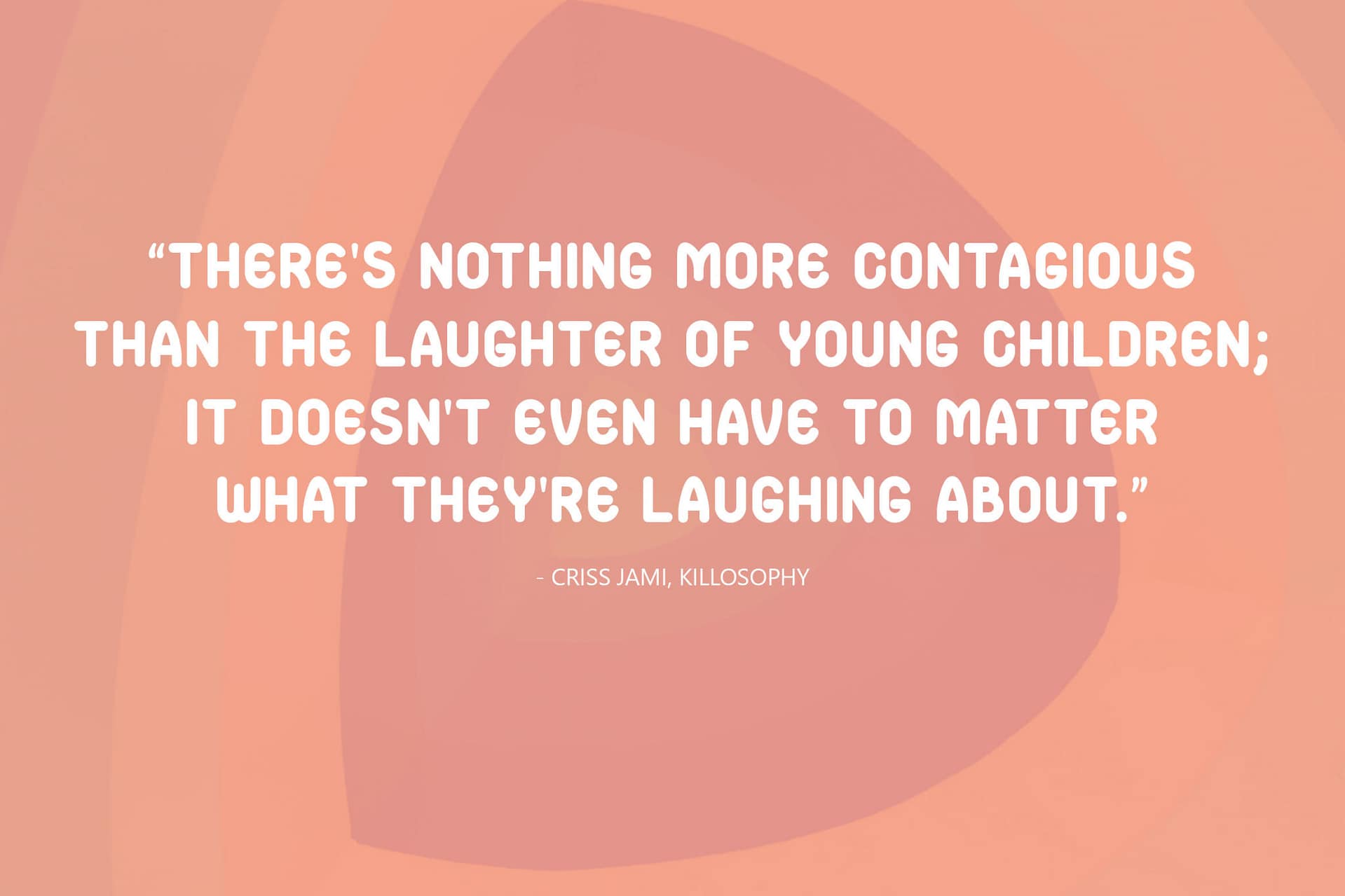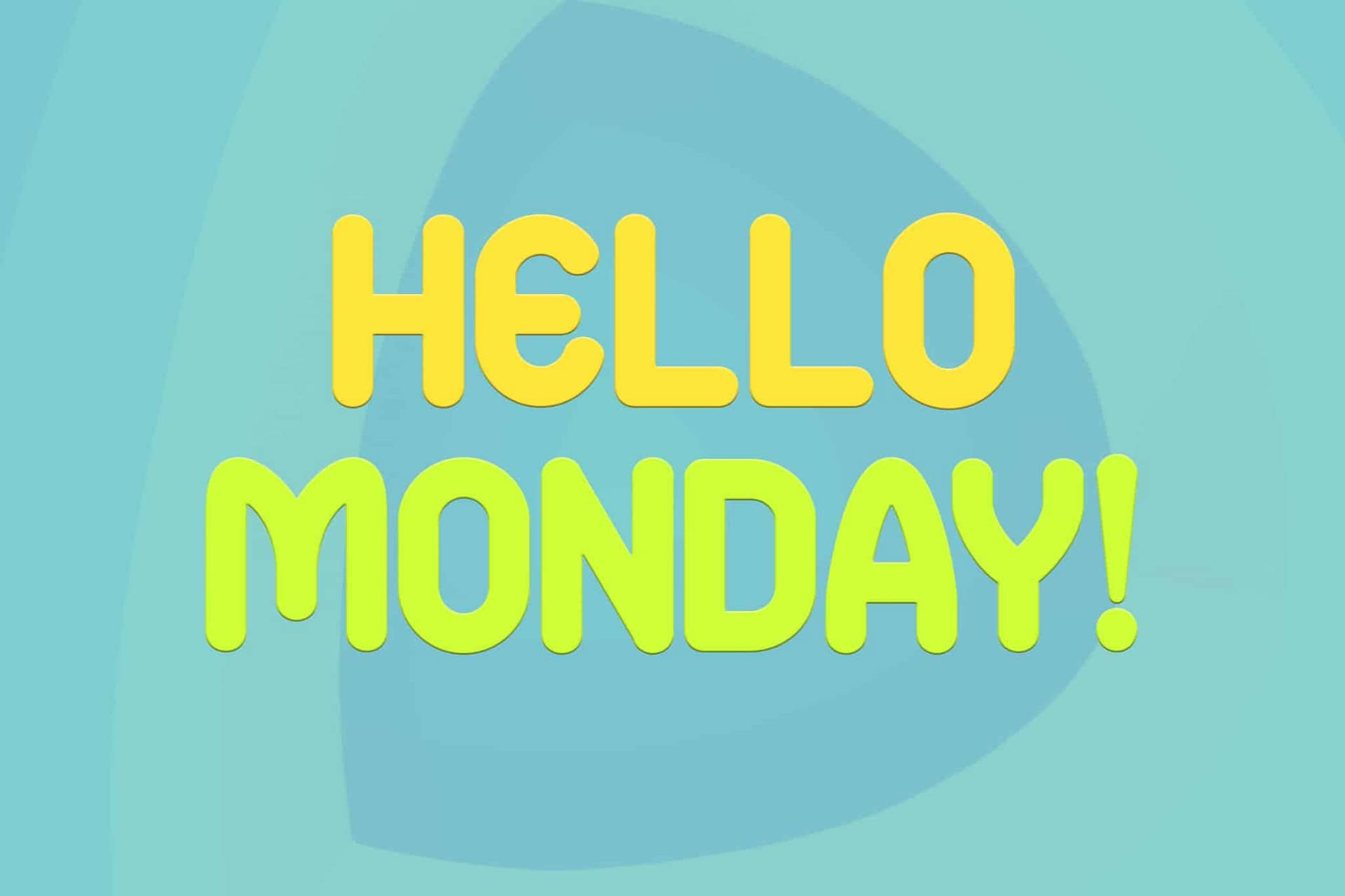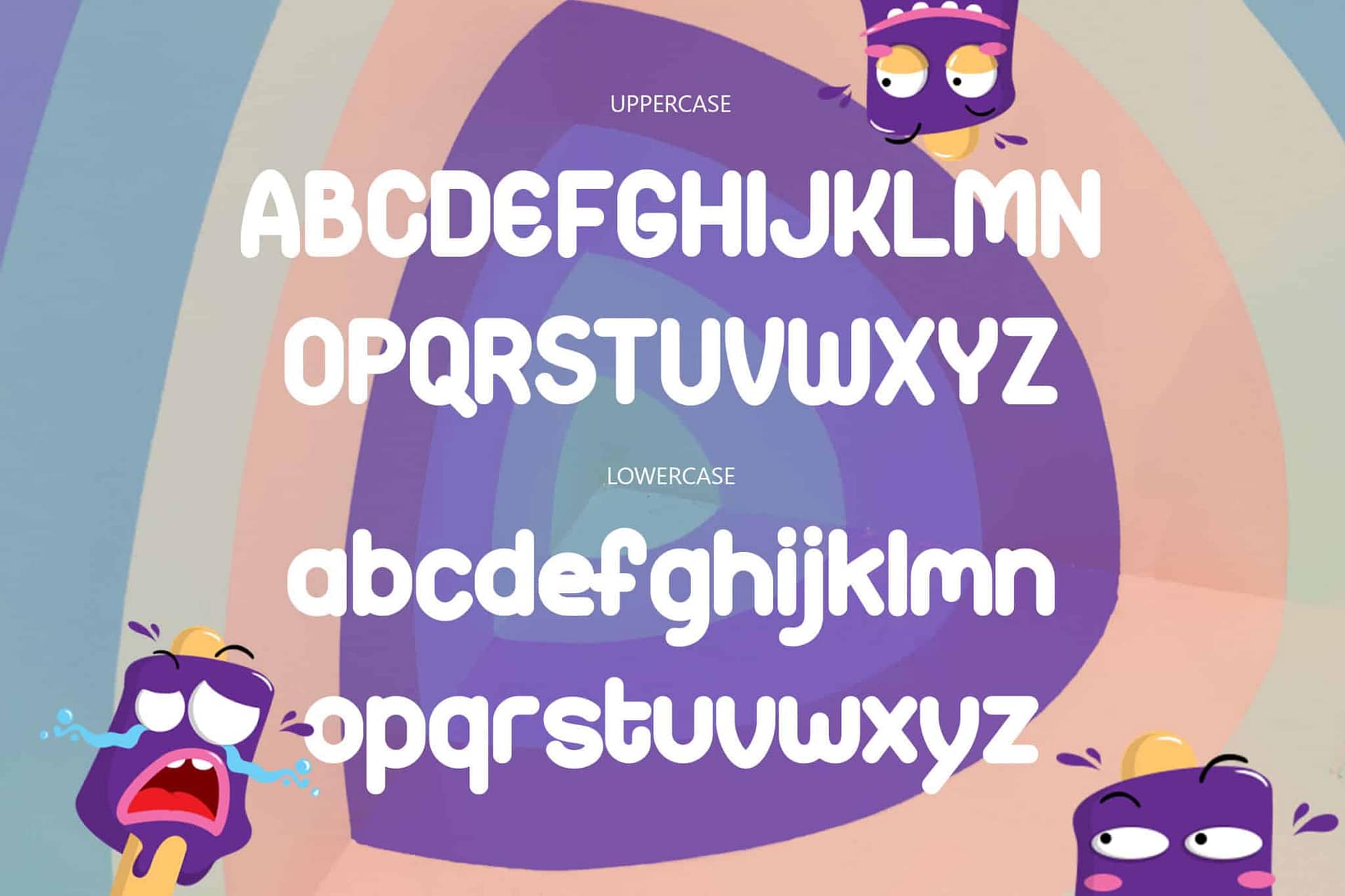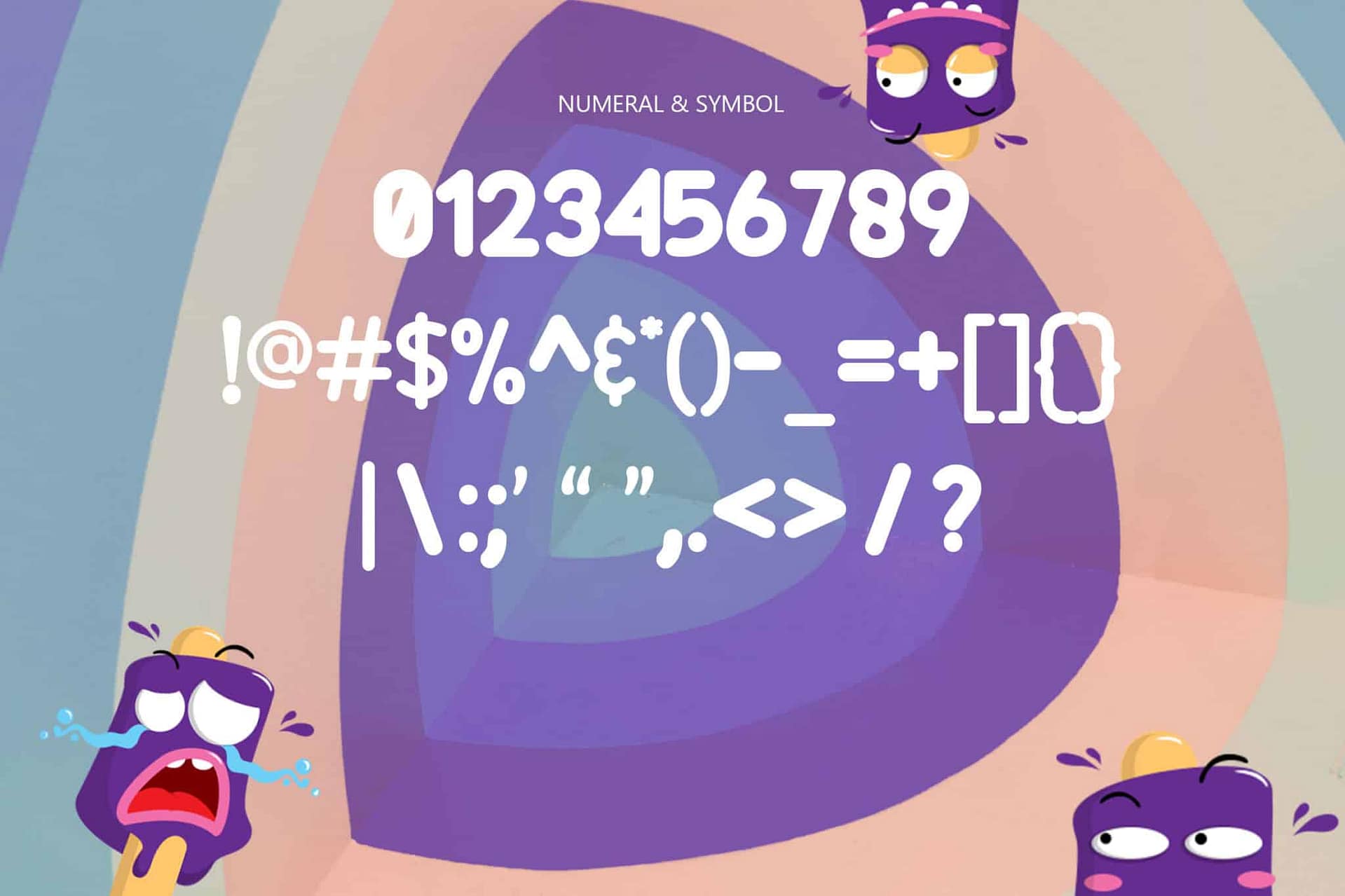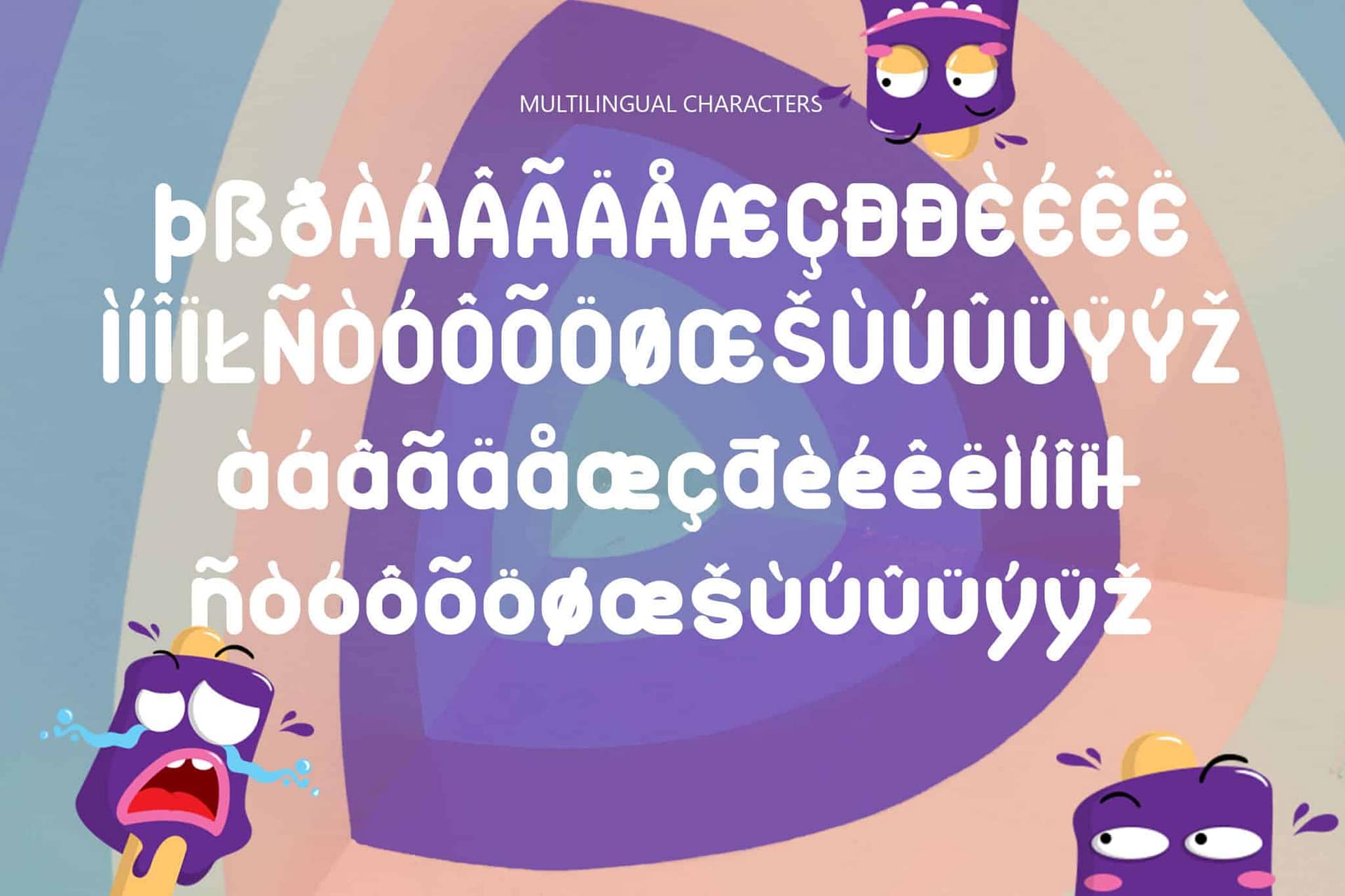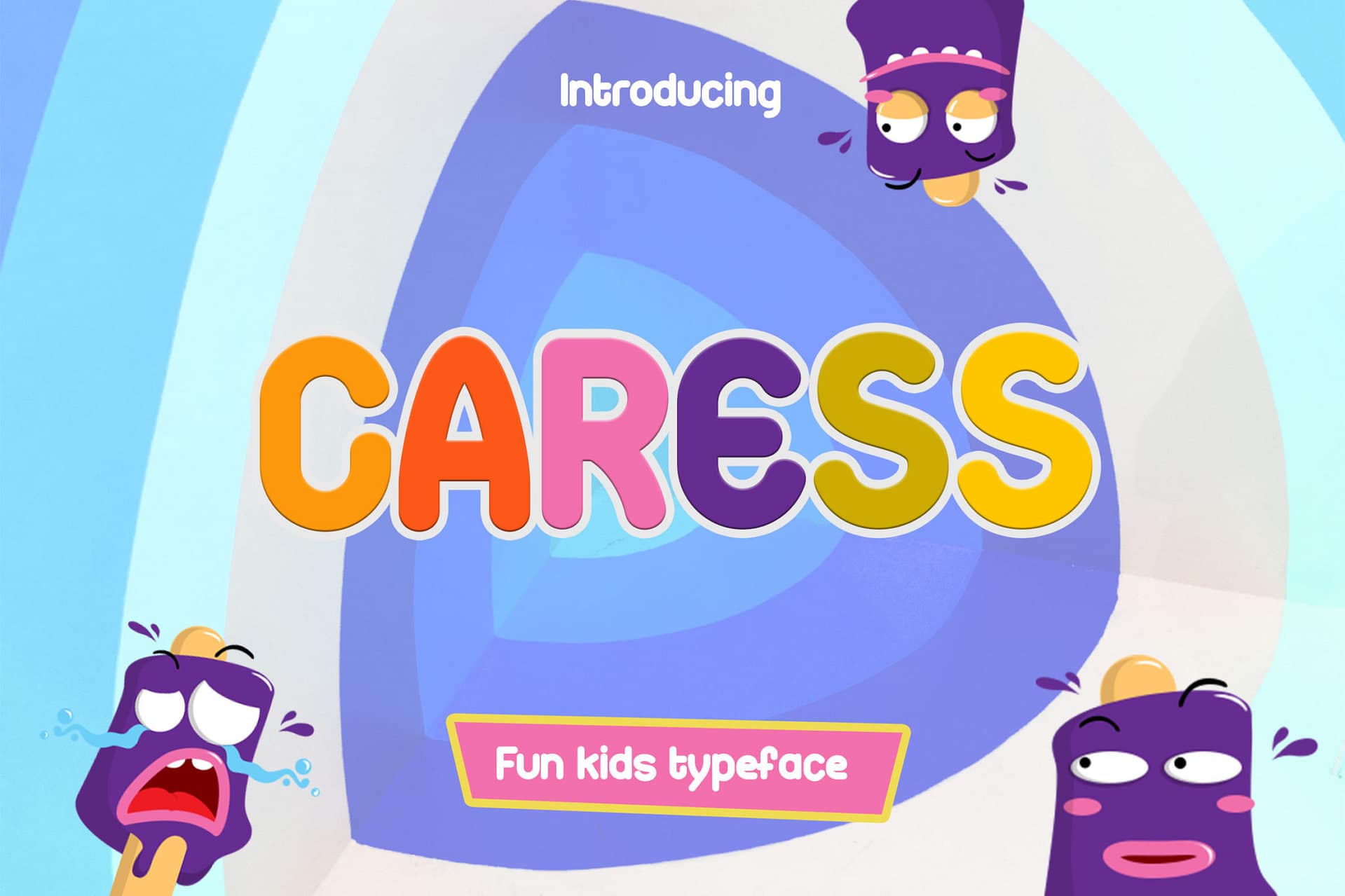
Caress - Kids Fun Font
Caress is sans serif fun font for kids. It has a cute, classy look and cool. It’s a great font for fashion,
apparel projects, signature, album cover, logo, branding, magazine, social media, & advertisements,
but also works great for other projects.
• Basic Latin A-Z and a-z
• Numbers
• Punctions
• Multilinguals